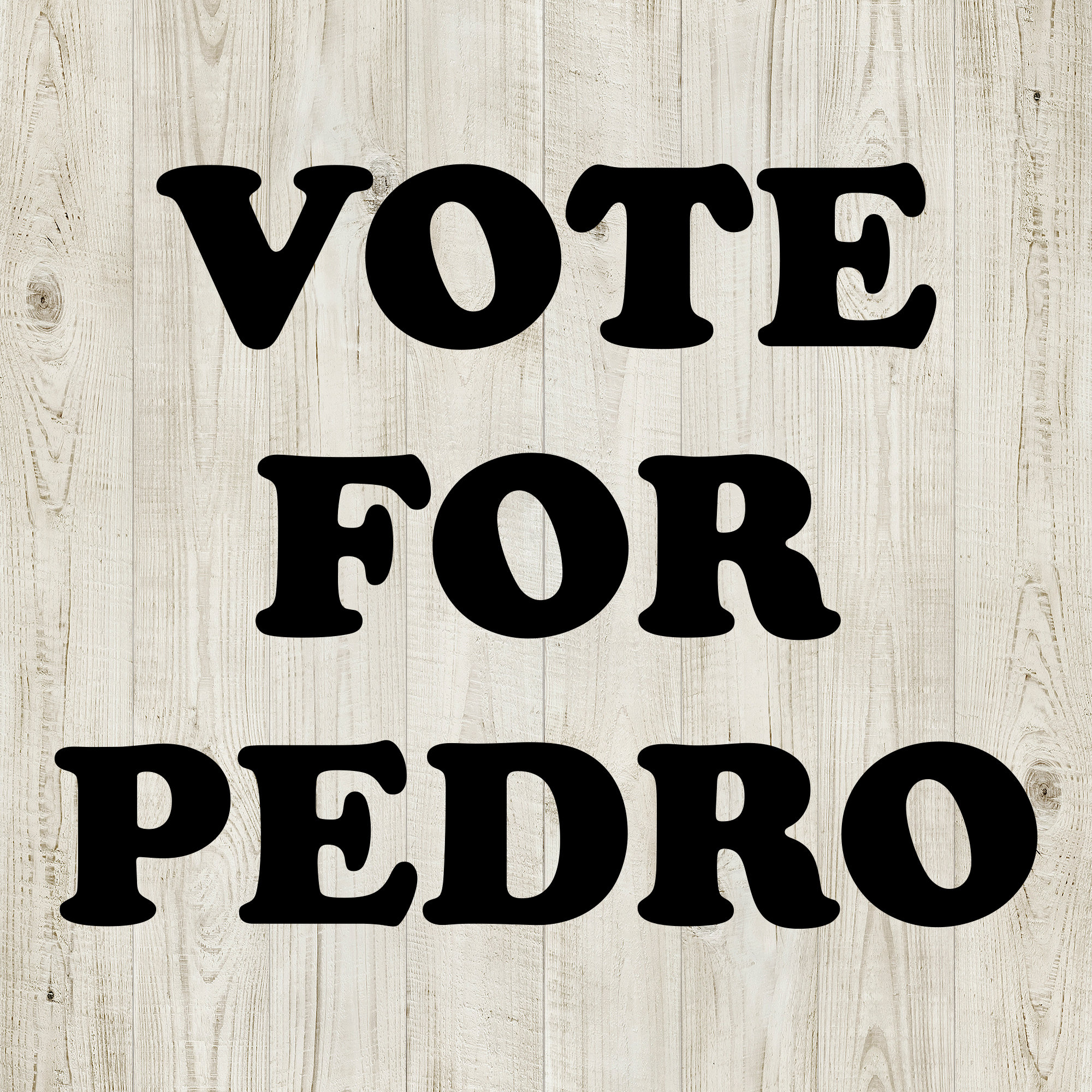
Vote For Pedro Font
Vote For Pedro Font - Size poster · display · headline · body text ·. Click to find the best 3 free fonts in the napoleon dynamite style. General serif · sans serif · italic · letterbat · initials · small caps. Every font is free to download! Know a place on the web where i can download the font free (cooper black or similar)? I know the font is cooper black, but i'd like an alternate that's fairly close because i don't want to spend $20 on it It has been used for signage, logos,. Looking for napoleon dynamite fonts? Cooper black is an old style serif font with exaggerated weight and rounded forms, designed in 1921. It's the font used for vote for.
It has been used for signage, logos,. Cooper black is an old style serif font with exaggerated weight and rounded forms, designed in 1921. General serif · sans serif · italic · letterbat · initials · small caps. It's the font used for vote for. Looking for napoleon dynamite fonts? Every font is free to download! Click to find the best 3 free fonts in the napoleon dynamite style. Know a place on the web where i can download the font free (cooper black or similar)? Size poster · display · headline · body text ·. I know the font is cooper black, but i'd like an alternate that's fairly close because i don't want to spend $20 on it
Click to find the best 3 free fonts in the napoleon dynamite style. It has been used for signage, logos,. I know the font is cooper black, but i'd like an alternate that's fairly close because i don't want to spend $20 on it Know a place on the web where i can download the font free (cooper black or similar)? Every font is free to download! It's the font used for vote for. Looking for napoleon dynamite fonts? Cooper black is an old style serif font with exaggerated weight and rounded forms, designed in 1921. General serif · sans serif · italic · letterbat · initials · small caps. Size poster · display · headline · body text ·.
Cooper black is an old style serif font with exaggerated weight and rounded forms, designed in 1921. Size poster · display · headline · body text ·. Every font is free to download! Know a place on the web where i can download the font free (cooper black or similar)? General serif · sans serif · italic · letterbat ·.
Vote For Pedro Font
Looking for napoleon dynamite fonts? Click to find the best 3 free fonts in the napoleon dynamite style. Know a place on the web where i can download the font free (cooper black or similar)? It has been used for signage, logos,. Every font is free to download!
Vote For Pedro Font
Click to find the best 3 free fonts in the napoleon dynamite style. Cooper black is an old style serif font with exaggerated weight and rounded forms, designed in 1921. I know the font is cooper black, but i'd like an alternate that's fairly close because i don't want to spend $20 on it It's the font used for vote.
Vote For Pedro Font
Cooper black is an old style serif font with exaggerated weight and rounded forms, designed in 1921. It's the font used for vote for. It has been used for signage, logos,. Know a place on the web where i can download the font free (cooper black or similar)? Looking for napoleon dynamite fonts?
Vote For Pedro Font
Click to find the best 3 free fonts in the napoleon dynamite style. I know the font is cooper black, but i'd like an alternate that's fairly close because i don't want to spend $20 on it Know a place on the web where i can download the font free (cooper black or similar)? Looking for napoleon dynamite fonts? Cooper.
Vote For Pedro Font
Size poster · display · headline · body text ·. Know a place on the web where i can download the font free (cooper black or similar)? It's the font used for vote for. I know the font is cooper black, but i'd like an alternate that's fairly close because i don't want to spend $20 on it Cooper black.
It's the font used for vote for. Click to find the best 3 free fonts in the napoleon dynamite style. It has been used for signage, logos,. I know the font is cooper black, but i'd like an alternate that's fairly close because i don't want to spend $20 on it Every font is free to download!
Vote For Pedro Font
Cooper black is an old style serif font with exaggerated weight and rounded forms, designed in 1921. Looking for napoleon dynamite fonts? Know a place on the web where i can download the font free (cooper black or similar)? Size poster · display · headline · body text ·. I know the font is cooper black, but i'd like an.
It's the font used for vote for. Size poster · display · headline · body text ·. It has been used for signage, logos,. Looking for napoleon dynamite fonts? Know a place on the web where i can download the font free (cooper black or similar)?
Vote For Pedro Font
Cooper black is an old style serif font with exaggerated weight and rounded forms, designed in 1921. Size poster · display · headline · body text ·. Know a place on the web where i can download the font free (cooper black or similar)? It's the font used for vote for. Looking for napoleon dynamite fonts?
I know the font is cooper black, but i'd like an alternate that's fairly close because i don't want to spend $20 on it General serif · sans serif · italic · letterbat · initials · small caps. Click to find the best 3 free fonts in the napoleon dynamite style. It has been used for signage, logos,.
Looking For Napoleon Dynamite Fonts?
It's the font used for vote for. Cooper black is an old style serif font with exaggerated weight and rounded forms, designed in 1921. Know a place on the web where i can download the font free (cooper black or similar)? Size poster · display · headline · body text ·.